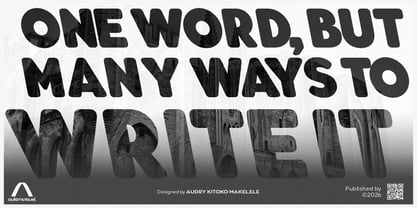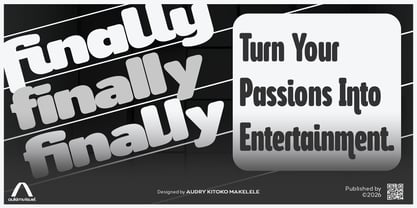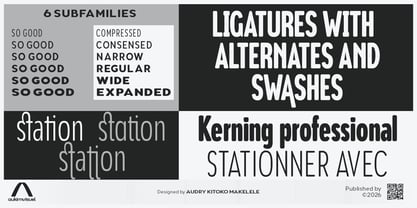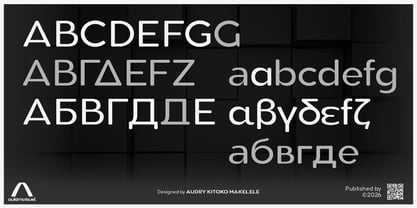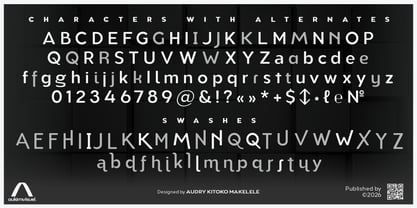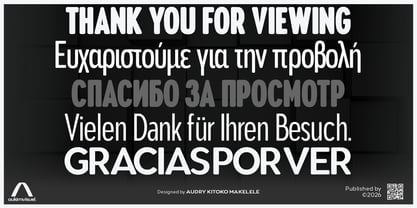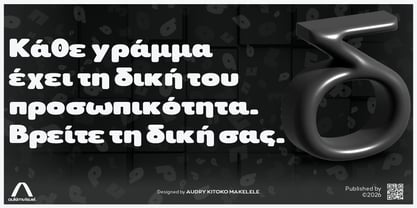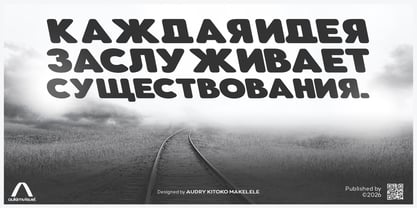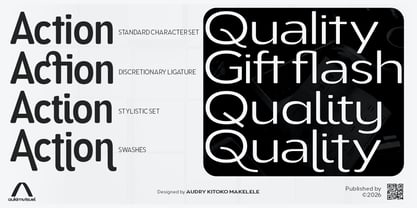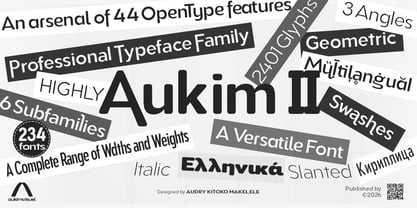
Aukim II Rounded
by AukimVisuel
The Aukim II Rounded Font Family was designed by Audry Makelele and published by AukimVisuel. Aukim II Rounded contains 234 styles and family package options. More about this family
The rounded version of Aukim II retains all the technical and typographical qualities of the original family, but softens its visual impact with circular terminals and warmer curves. This variation brings a more human and friendly dimension, ideal for projects where professional neutrality must be accompanied by a touch of accessibility and approachability. A modern, geometric, and humanistic sans serif, Aukim II Rounded stands out with rounded contours that soften the rigor of straight forms, offering optimized readability for screen and print, with a smooth rendering that facilitates prolonged reading. Its stylistic flexibility makes it suitable for titles and body text alike, in branding, interfaces, or publications. It offers extensive language coverage, including Latin (basic to IPA), Cyrillic (including historical forms), and Greek, with 2,401 integrated glyphs including numbers, punctuation, diacritics, currency symbols, and stylistic variants. The family comes in several optical widths—Compressed, Condensed, Narrow, Normal, Wide, and Expanded—as well as three angles: Normal, Italic, and Slanted, enhanced by a rounded effect that gives it a friendlier and more expressive tone. Typographically, it incorporates 44 OpenType features, such as contextual and discretionary ligatures, alternates, swashes, small caps, tabulars, fractions, superscripts/subscripts, case-sensitive forms, and localized variants, with kerning and hinting adjusted for perfect consistency at all sizes and on all platforms. Designed for visual identities seeking to inspire trust and closeness, multilingual interfaces where legibility must be accompanied by a welcoming tone, as well as editorial publications and signage, Aukim II Rounded is the softer, more expressive version of the Aukim II family. It retains the technical robustness and professional versatility, while adding an emotional and friendly dimension that broadens its scope of application.
Designers: Audry Makelele
Foundry: AukimVisuel